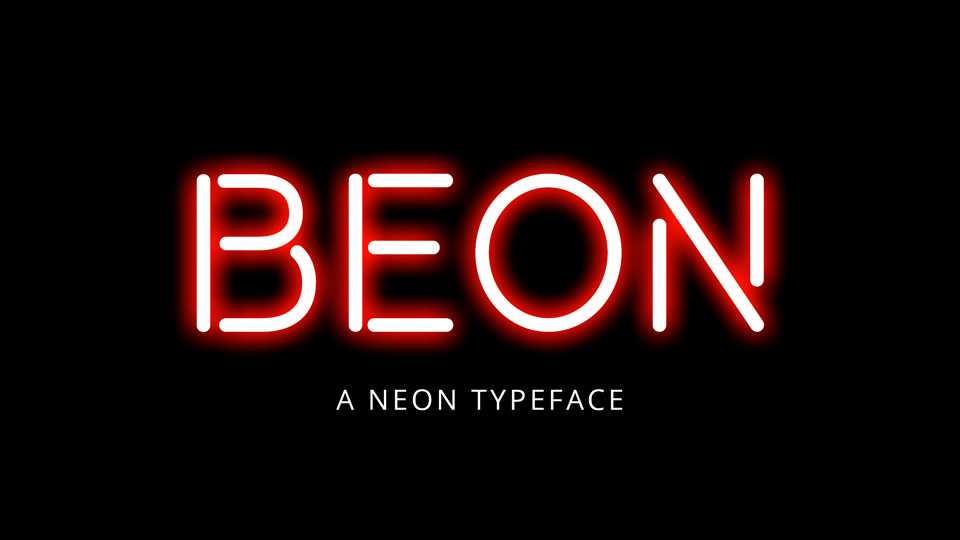
Download Beon font, a display typeface inspired by neon signages. Beon font is perfect for headlines and posters, neon-styled messages and other artworks.
Designer: Bastien Sozeau